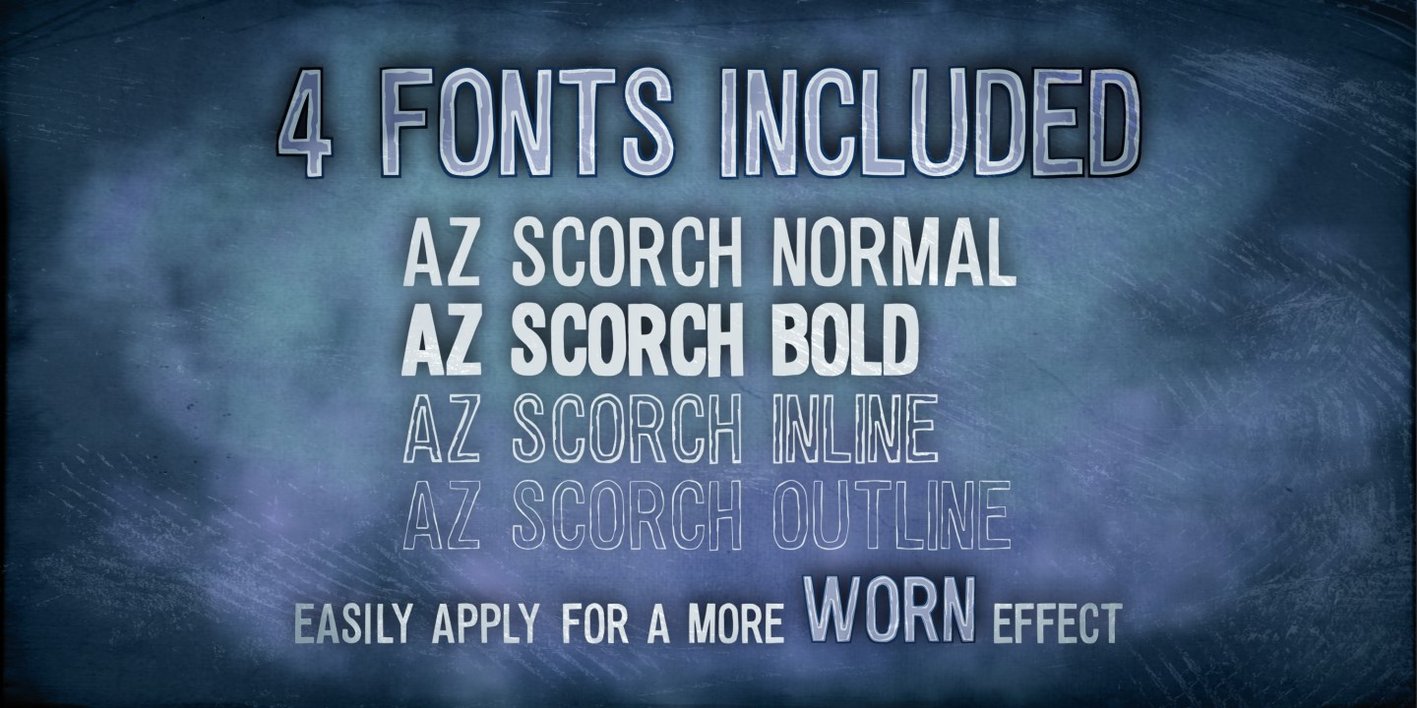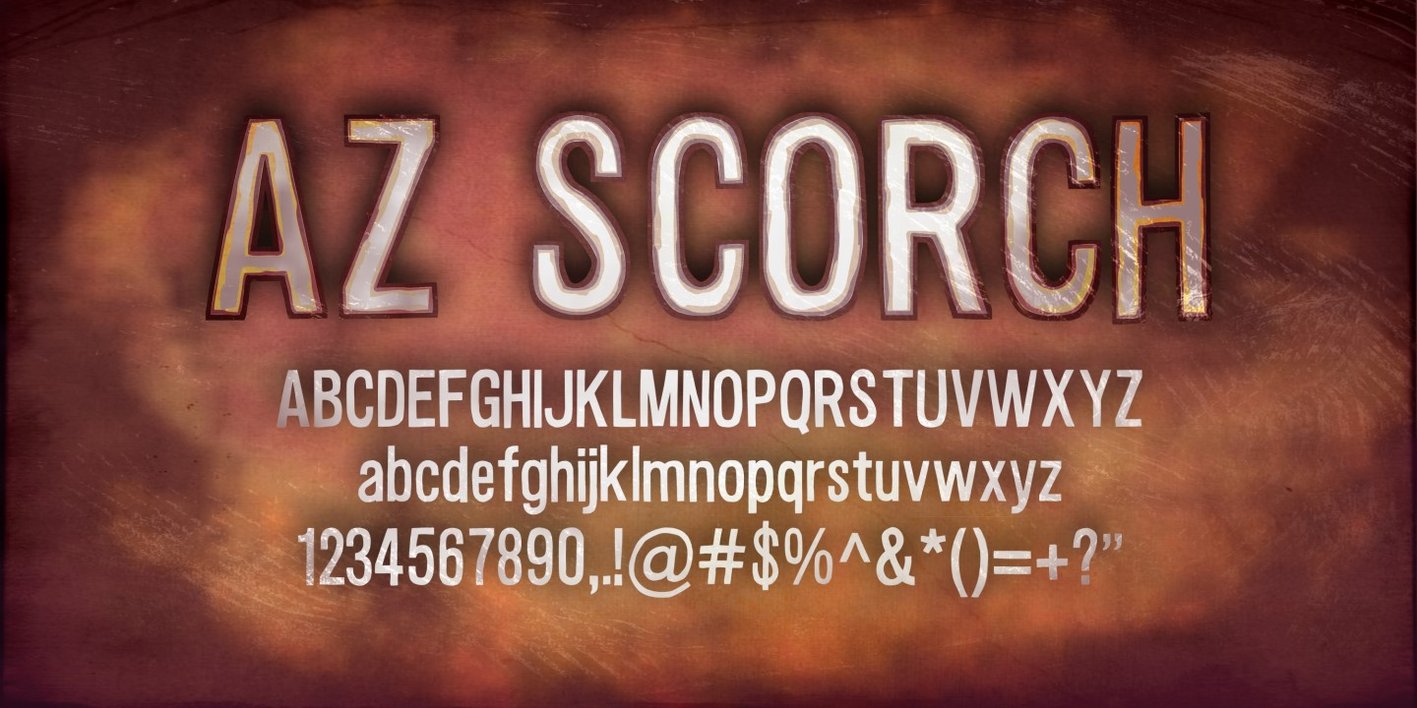
AZ Scorch Font
AZ Scorch was inspired from a need to develop an easily changable worn headline. This font was designed for use as a display headline or sub headline.